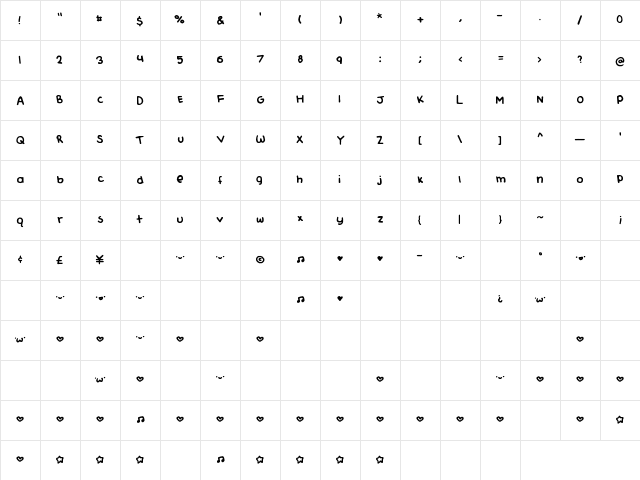
Lemons Can Fly Regular
Design Context for Lemons Can Fly
Lemons Can Fly is a composed and adaptable typeface that performs quietly and consistently across a wide range of design contexts.
Pro Tip: Use Lemons Can Fly in both headline and body roles to test its range before committing to a single application.